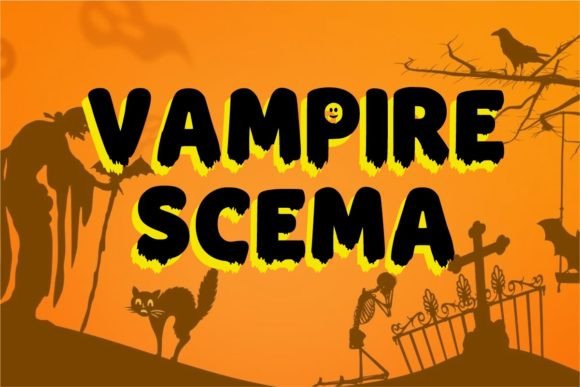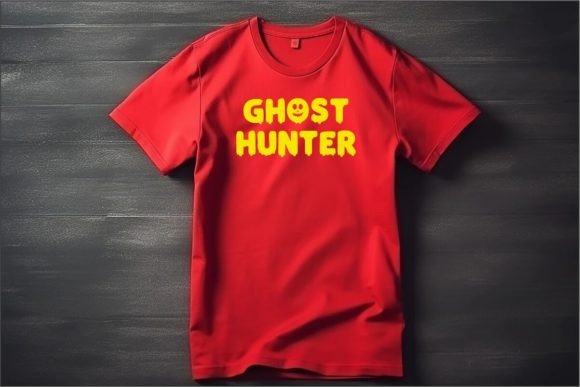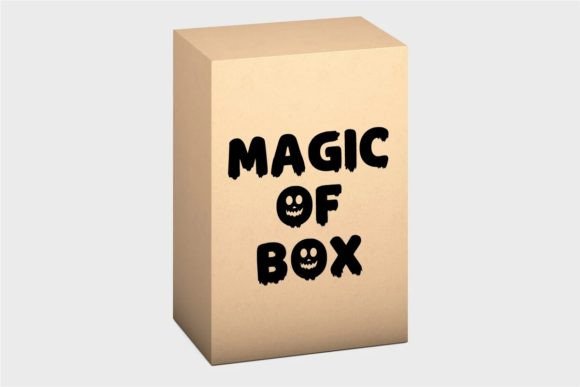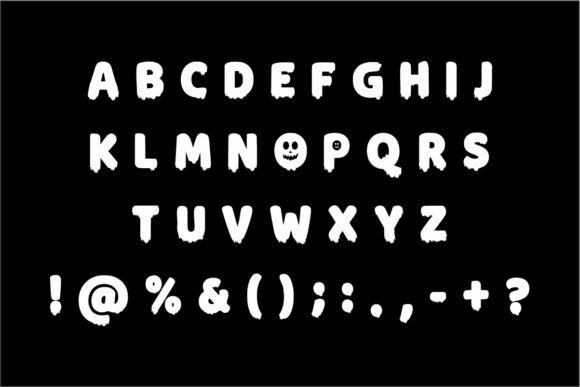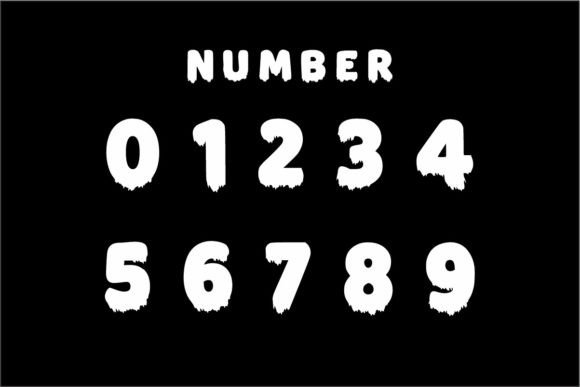
Crazy Spooky Font: The Ultimate Halloween Design Essential
Are you ready to add a dash of spookiness to your Halloween designs? Look no further than the Crazy Spooky Font, a thrilling typeface that’s perfect for creating eerie and eye-catching Halloween party invitations, web graphics, and decorations. In this article, we’ll dive into the world of this fantastic font, exploring its features, uses, and benefits for designers and crafters.
What is Crazy Spooky Font?
Crazy Spooky Font is a unique and installable font designed specifically for Halloween-themed projects. This font is carefully crafted to evoke the spirit of the spookiest season, with a playful and eerie feel that’s sure to send shivers down the spines of your audience. Whether you’re designing invitations, decorations, or web graphics, this font is the perfect choice to add a touch of Halloween magic to your work.
Key Features of Crazy Spooky Font
- Halloween-themed: This font is specifically designed for Halloween-themed projects, making it perfect for creating spooky and festive designs.
- Versatile: Crazy Spooky Font can be used for a wide range of design projects, including party invitations, web graphics, decorations, and more.
- Eerie and Playful: This font has a unique blend of eerie and playful characteristics, making it perfect for creating designs that are both spooky and fun.
Uses of Crazy Spooky Font
Crazy Spooky Font is a versatile typeface that can be used for a wide range of Halloween-themed design projects. Here are some ideas to get you started:
- Halloween Party Invitations: Create spooky and eye-catching invitations that will set the tone for your Halloween party.
- Web Graphics: Use Crazy Spooky Font to create eerie and festive web graphics, such as banners, buttons, and icons.
- Halloween Decorations: Add a touch of spookiness to your Halloween decorations, such as signs, posters, and window clings.
- Crafting Projects: Use Crazy Spooky Font to create spooky and fun crafting projects, such as Halloween cards, gift tags, and scrapbook pages.
Crazy Spooky Font offers a range of benefits for designers and crafters, including:
- Unique and Eye-catching Designs: This font allows you to create unique and eye-catching designs that will stand out from the crowd.
Tips for Using Crazy Spooky Font
Here are some tips for getting the most out of Crazy Spooky Font:
- Experiment with Different Sizes: Try using Crazy Spooky Font in different sizes to create a range of effects, from subtle to bold.
- Combine with Other Fonts: Combine Crazy Spooky Font with other fonts to create interesting and unique typography.
- Use in Combination with Images: Use Crazy Spooky Font in combination with images, such as photos or illustrations, to create eye-catching designs.
- Have Fun: Most importantly, have fun with Crazy Spooky Font! Experiment with different designs and ideas to create something truly unique and spooky.